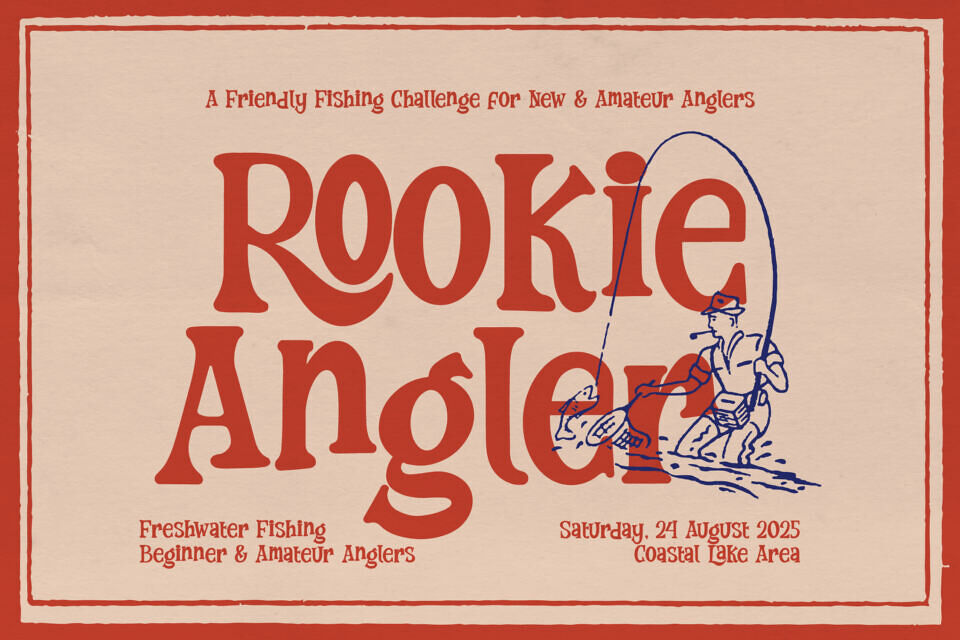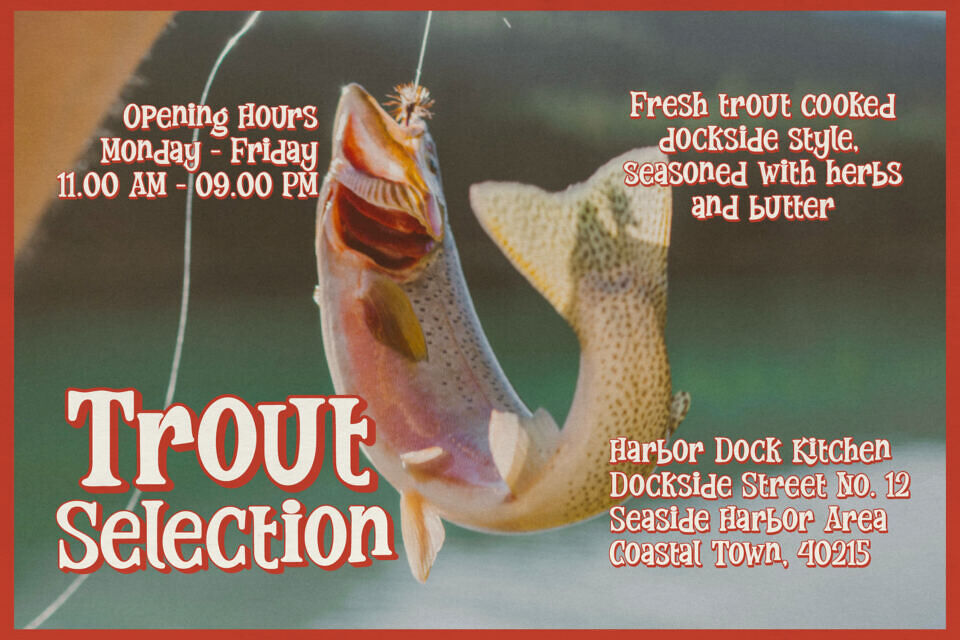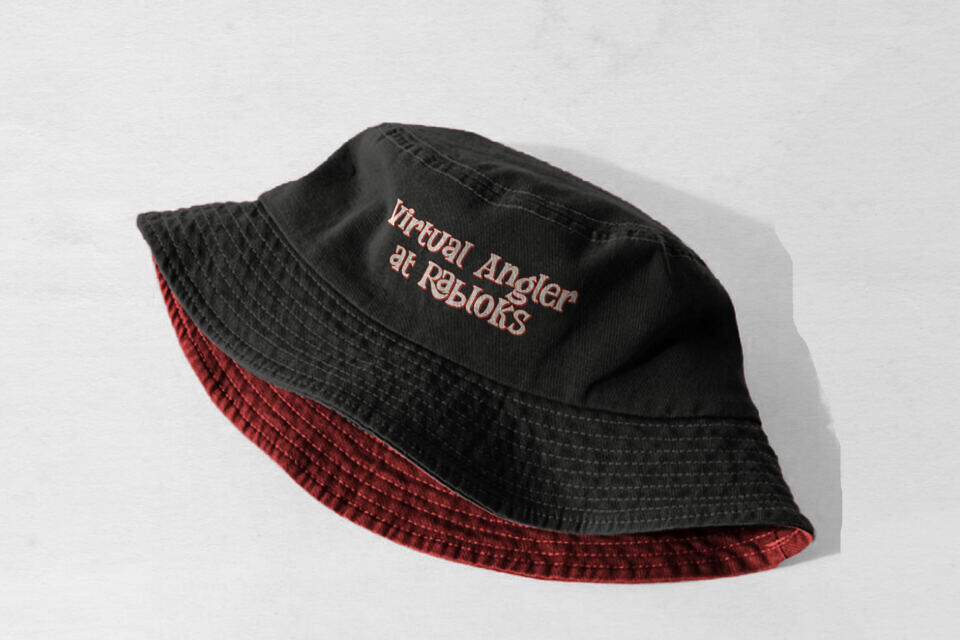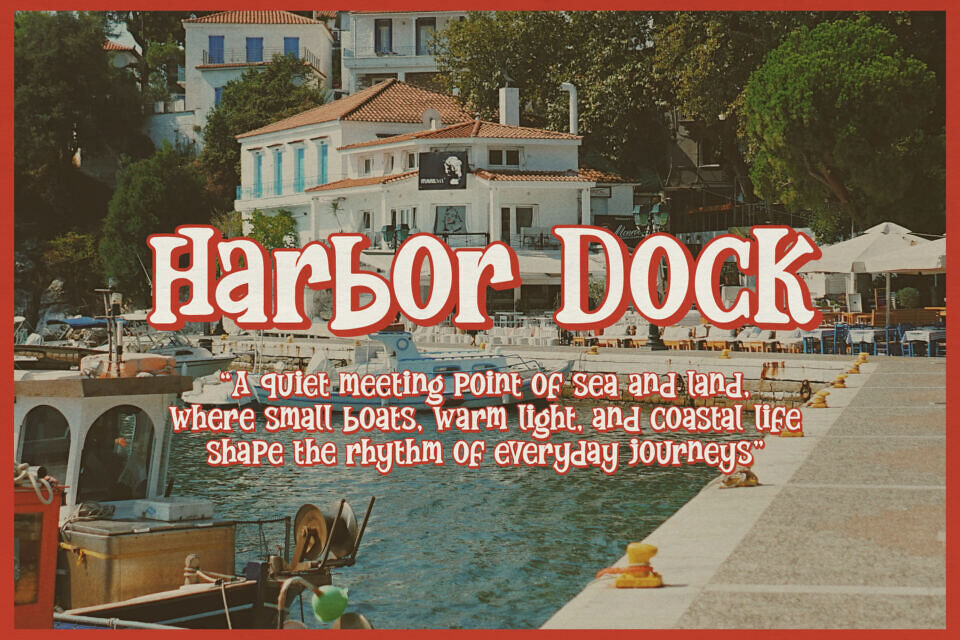
Sampan Folk font is a charming, hand-drawn display typeface that captures the essence of rustic, lakeside living and folk-art heritage.
Created by Gracetype Studios, the Sampan Folk typeface features playful, wobbly stems and flared terminals that give it a unique, organic personality. The glyphs in the Sampan Folk font are designed with an uneven, handmade quality that feels authentic and nostalgic, reminiscent of vintage travel posters or hand-painted boat signs.
This Sampan Folk typeface is the perfect tool for designers looking to inject a “human touch” into their work. Use the Sampan Folk font for craft beer labeling, outdoor apparel branding, or artisanal food packaging.